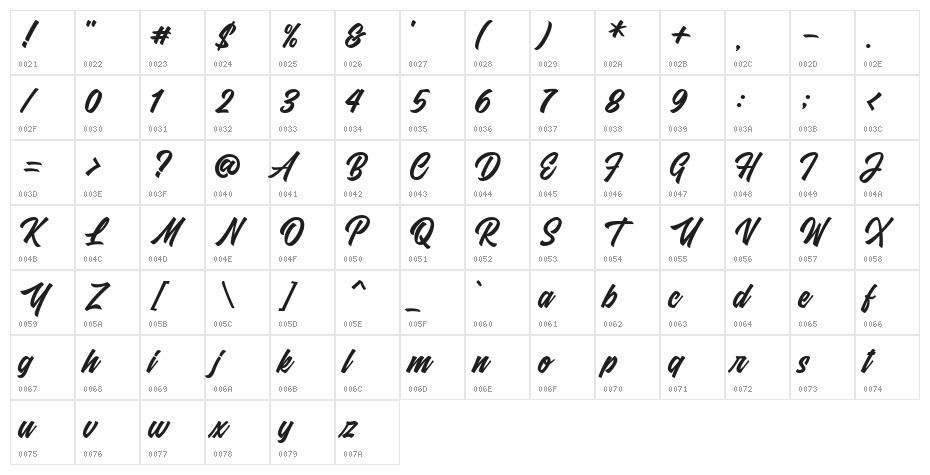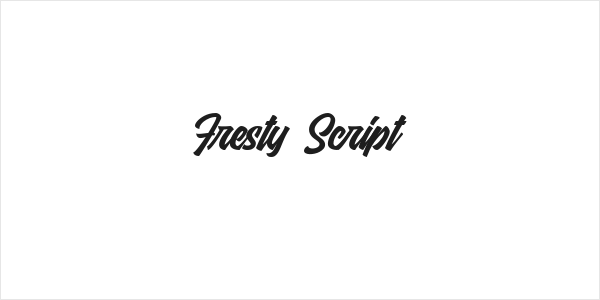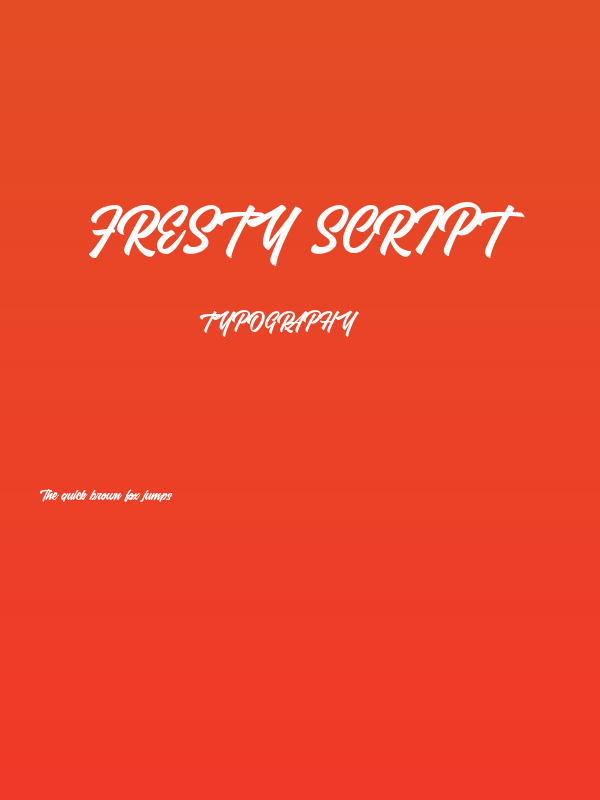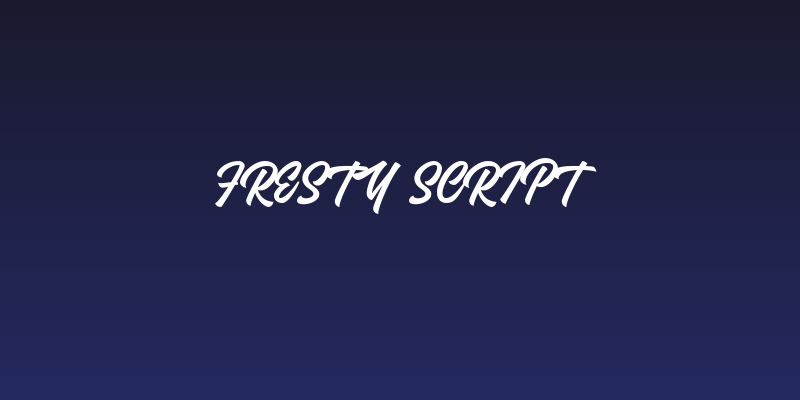
Fresty Script Font
Fresty Script Description
This font features a dynamic and flowing script style, characterized by its bold and expressive strokes. The letters are connected in a fluid manner, creating a sense of movement and elegance. The uppercase letters are slightly more elaborate, with sweeping curves and flourishes, while the lowercase letters maintain a consistent rhythm and balance. The numerals and special characters are designed to complement the overall style, ensuring a cohesive look across all text elements. This font is ideal for projects that require a touch of sophistication and flair.
| Use Case | Logos, Headlines, Invitations |
| Proposed Projects | Ideal for wedding invitations, branding, logos, and elegant packaging designs. |